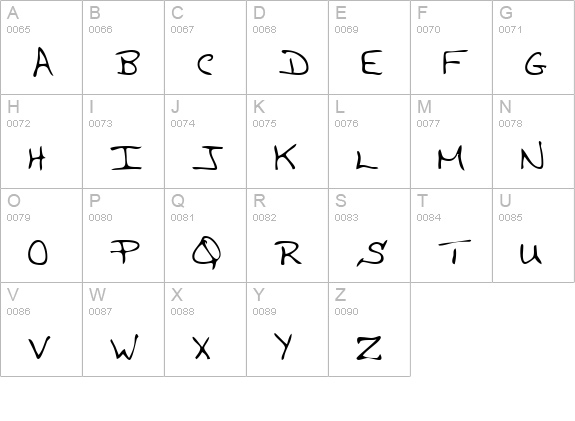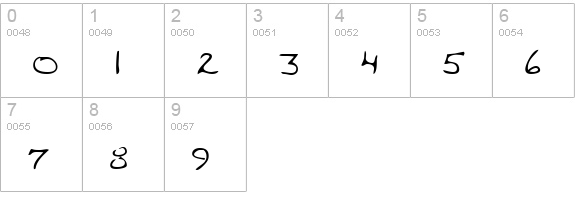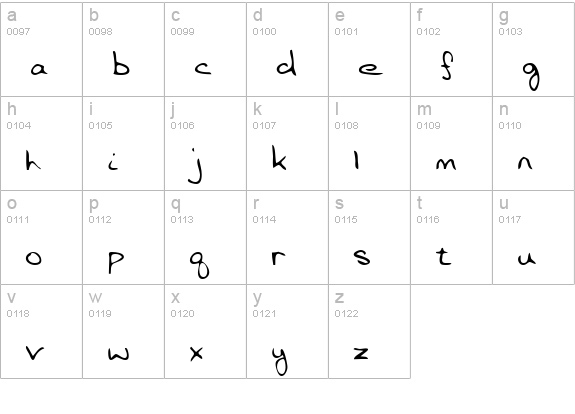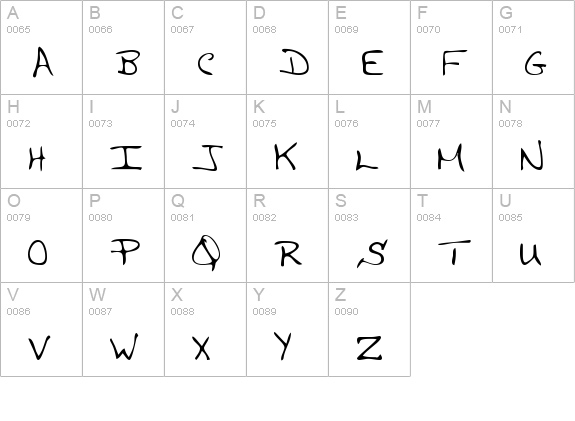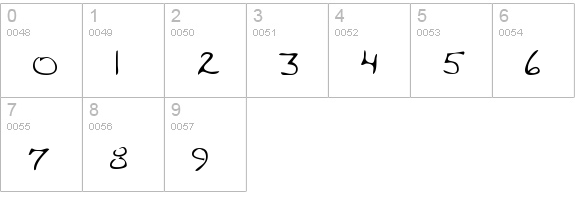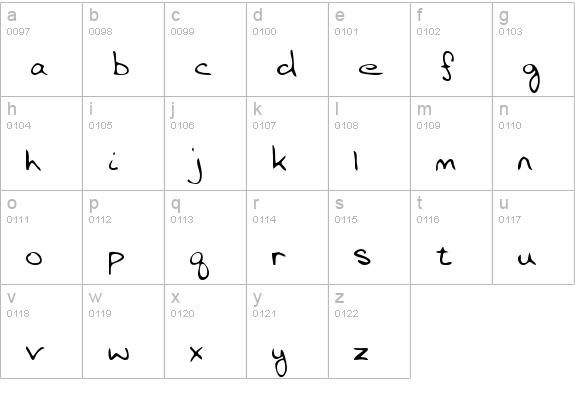
ClaytonsHand Regular Font Details
ClaytonsHand Regular is the standard, neutral variant in the ClaytonsHand typeface family \xE2\x80\x94 well suited to general body text, paragraphs, and standard typographic work.
ClaytonsHand Regular font is a charming and versatile typeface that exudes warmth and personality. Its handwritten style adds a touch of authenticity to any project, making it perfect for a wide range of design applications. With its smooth curves and flowing strokes, ClaytonsHand Regular brings a unique flair to logos, branding, invitations, and more. The best part? ClaytonsHand Regular is available for free download at FontsMarket.com. This means you can easily add this delightful font to your collection without any cost. Whether you're a designer looking to enhance your projects or a hobbyist seeking to elevate your creations, ClaytonsHand Regular is a fantastic choice that won't break the bank. Download it today and let your creativity shine with this stunning typeface.